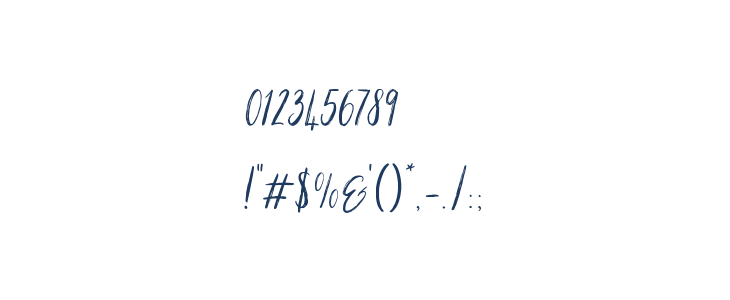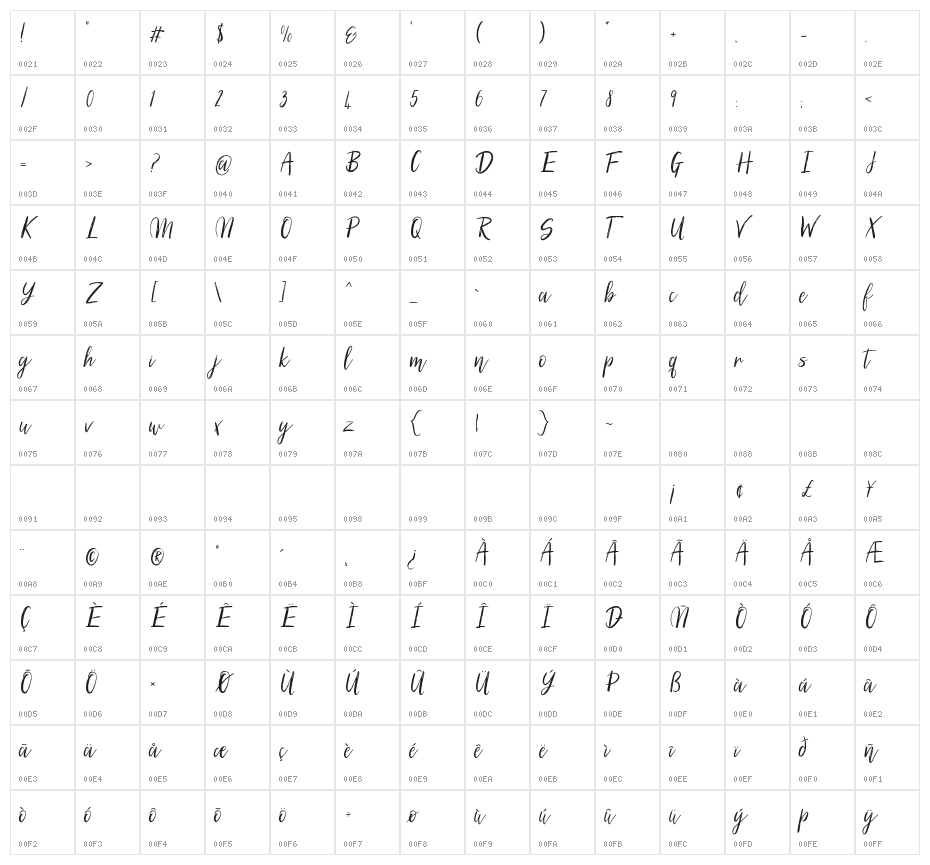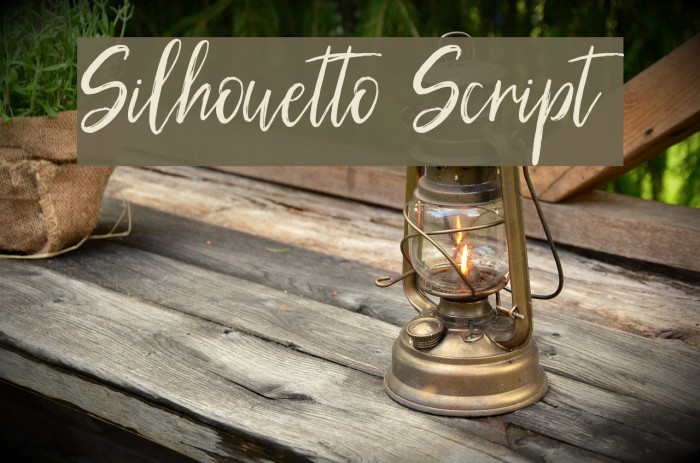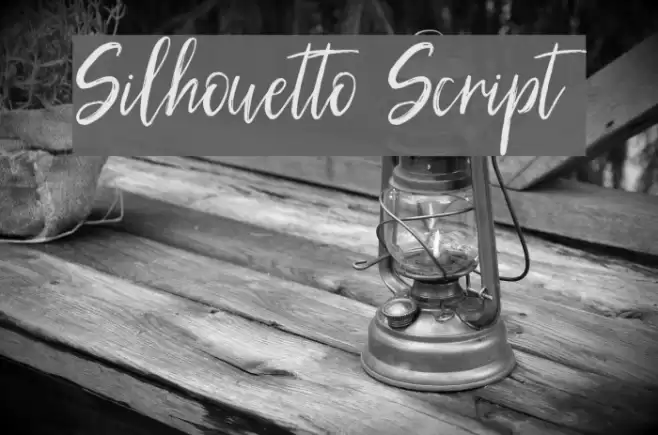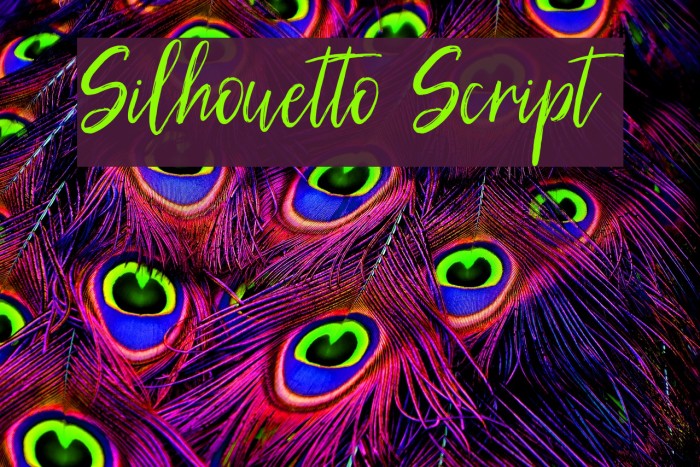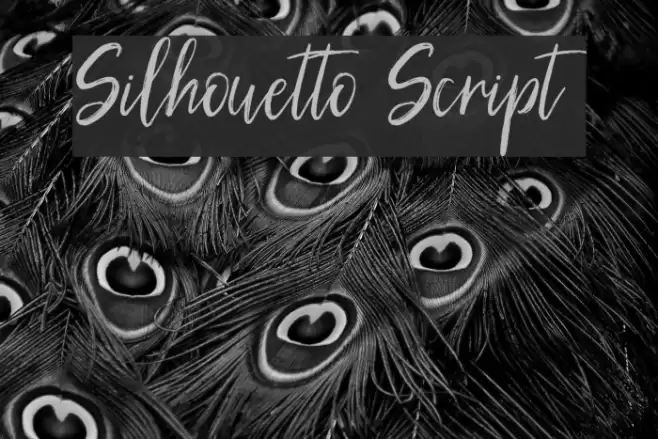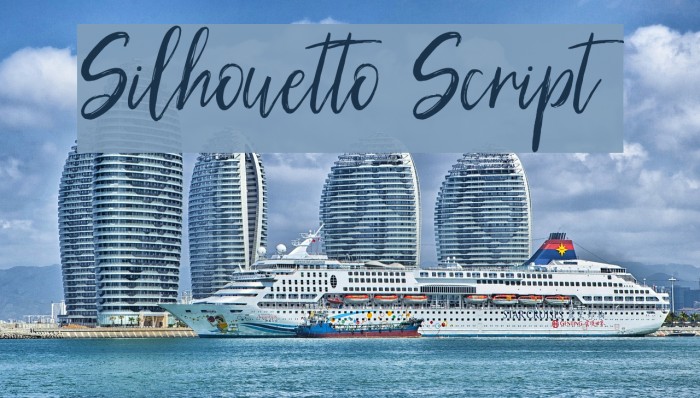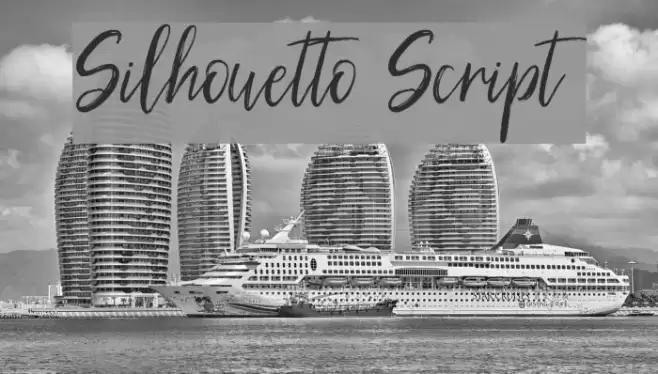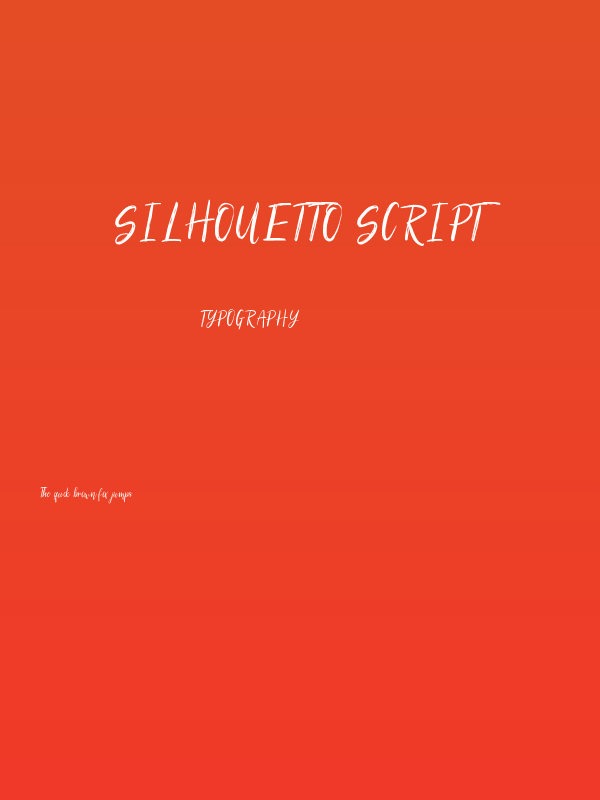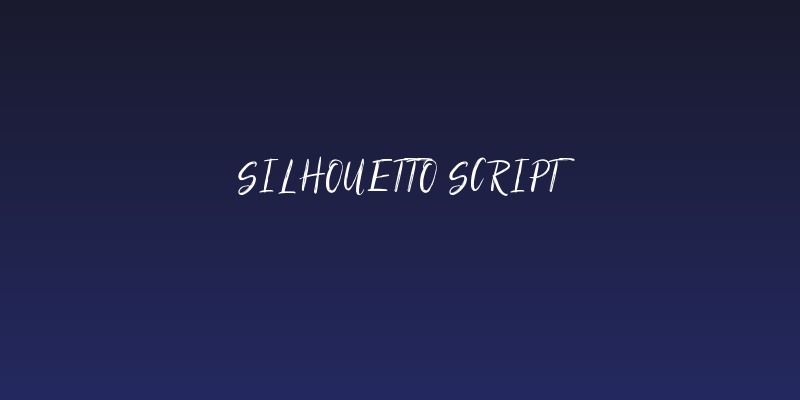
Silhouetto Script Font
Silhouetto Script Description
This script font exudes a lively and dynamic feel, characterized by its fluid, handwritten style. The letters are elegantly connected, with a natural flow that mimics authentic cursive handwriting. Each character exhibits a slight slant, enhancing the sense of motion and grace. The strokes vary in thickness, providing a medium contrast that adds depth and interest to the text. The uppercase letters are bold and prominent, while the lowercase letters maintain a consistent, flowing appearance. This font is versatile, suitable for projects that require a personal touch or a creative flair.